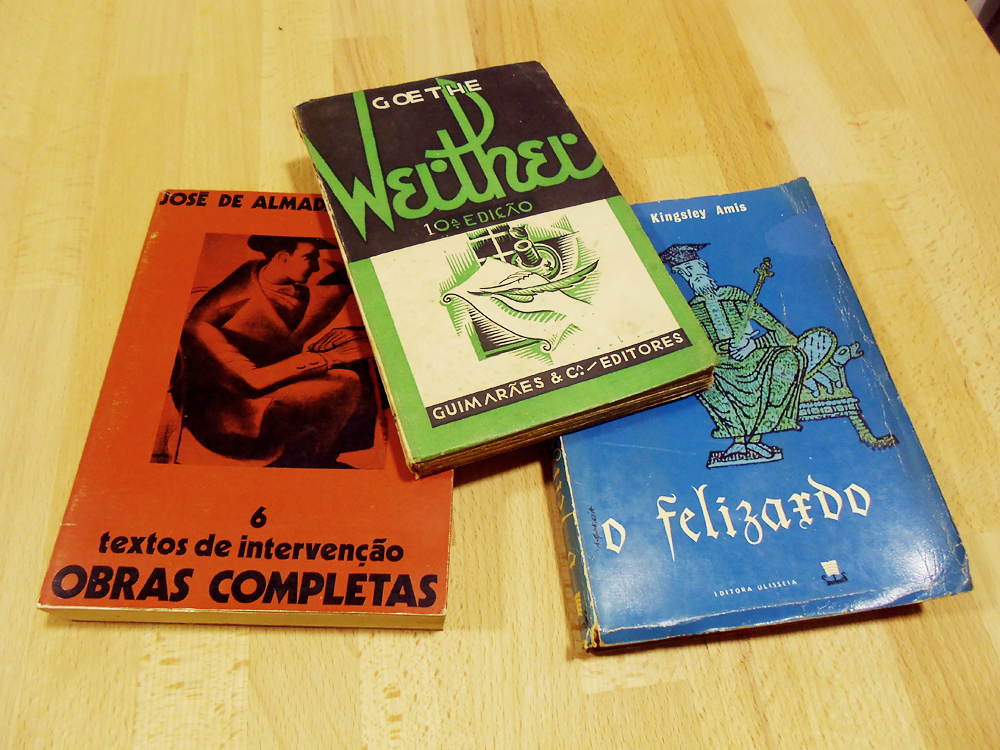
Font inspiration #1: Vintage book covers
One of my absolute favorite sources of font inspiration are book covers from my grandfather's collection.
Truth be told, I've been known to like anything old (one of my favorite activities is rummaging through bargain-boxes of what most people would consider garbage), but some vintage book covers have truly beautiful and unusual typography, along with lovely illustrations.
So, below, are three of my favorite examples of vintage book covers that are turning my font-making-mind's wheels, at the moment.
I particularly love that in all three books there is a monochrome feel to the cover and illustration, giving the type an extra bit of spotlight. (And don't the three colors look good together?!)
I love the Modernist feel of the letters in “Textos de Intervenção”, which hints at the contents inside, and goes perfectly with the illustration.
In “Werther”, the title is particularly eye-catching, for its size and unusualness. But I also have a soft spot for the type used in the edition and name of the publishing company: the A and Ç especially.
And finally, I will always fall for a Gothic calligraphy, such as the one featured in “Lucky Jim”, especially when it's paired with a simpler sans-serif. Mmmh!